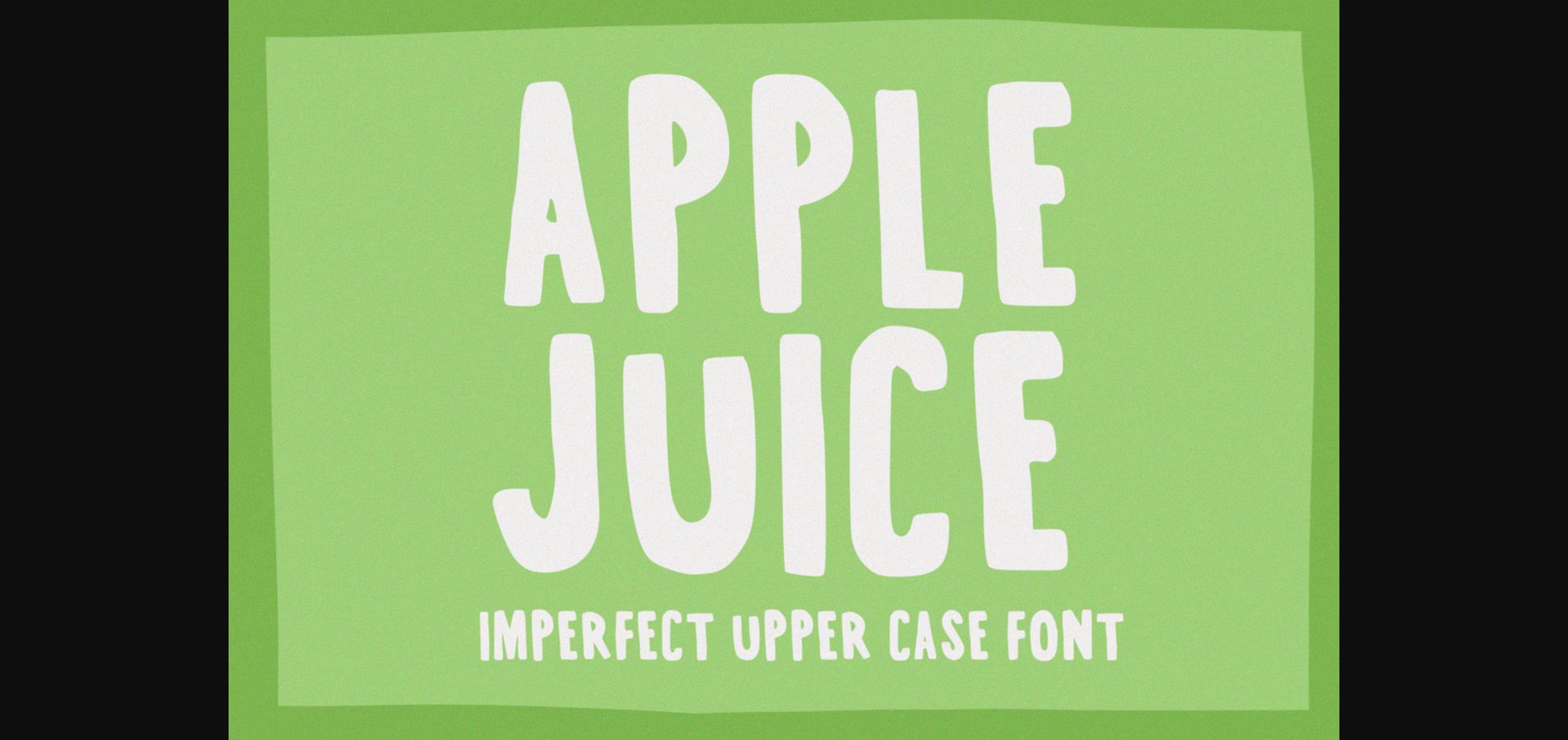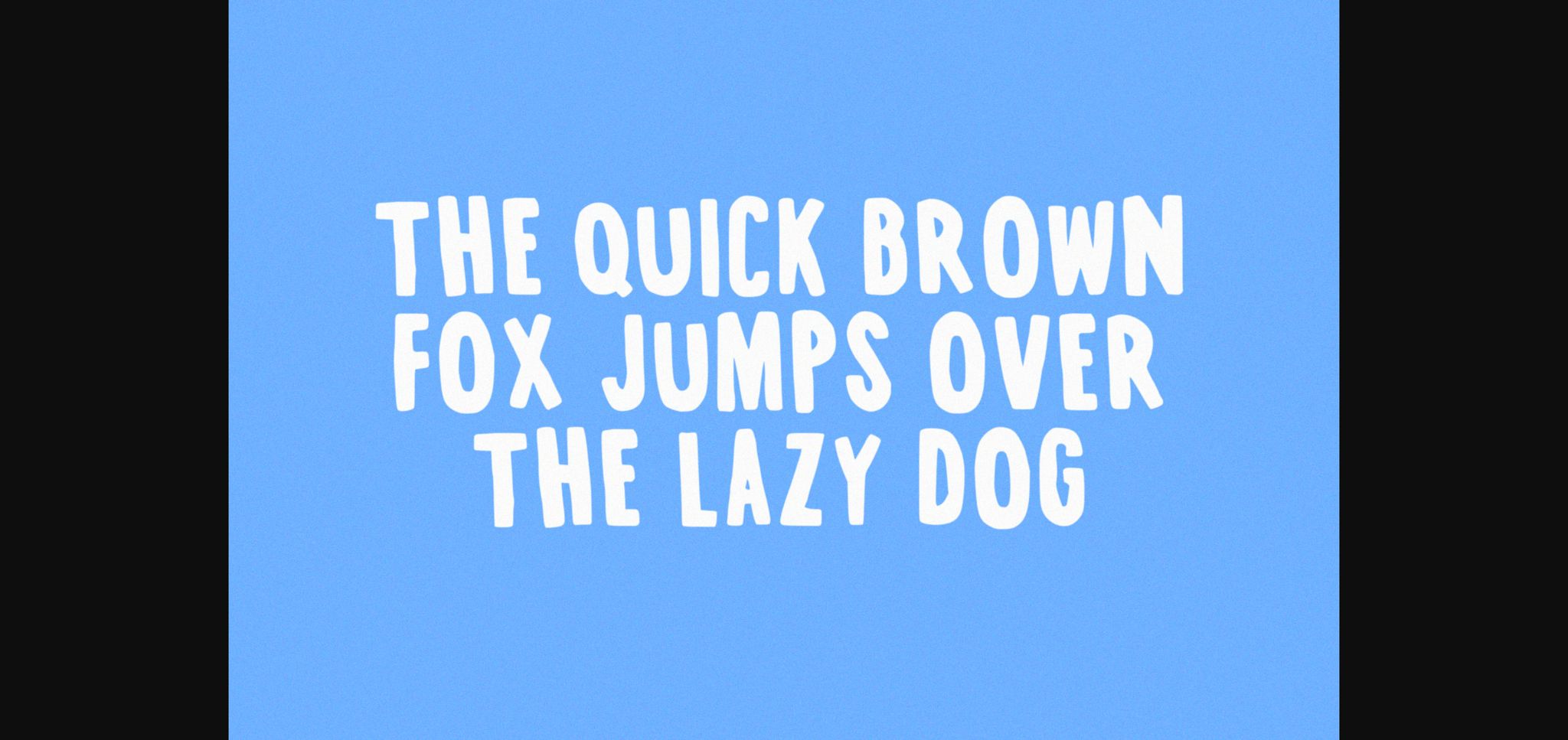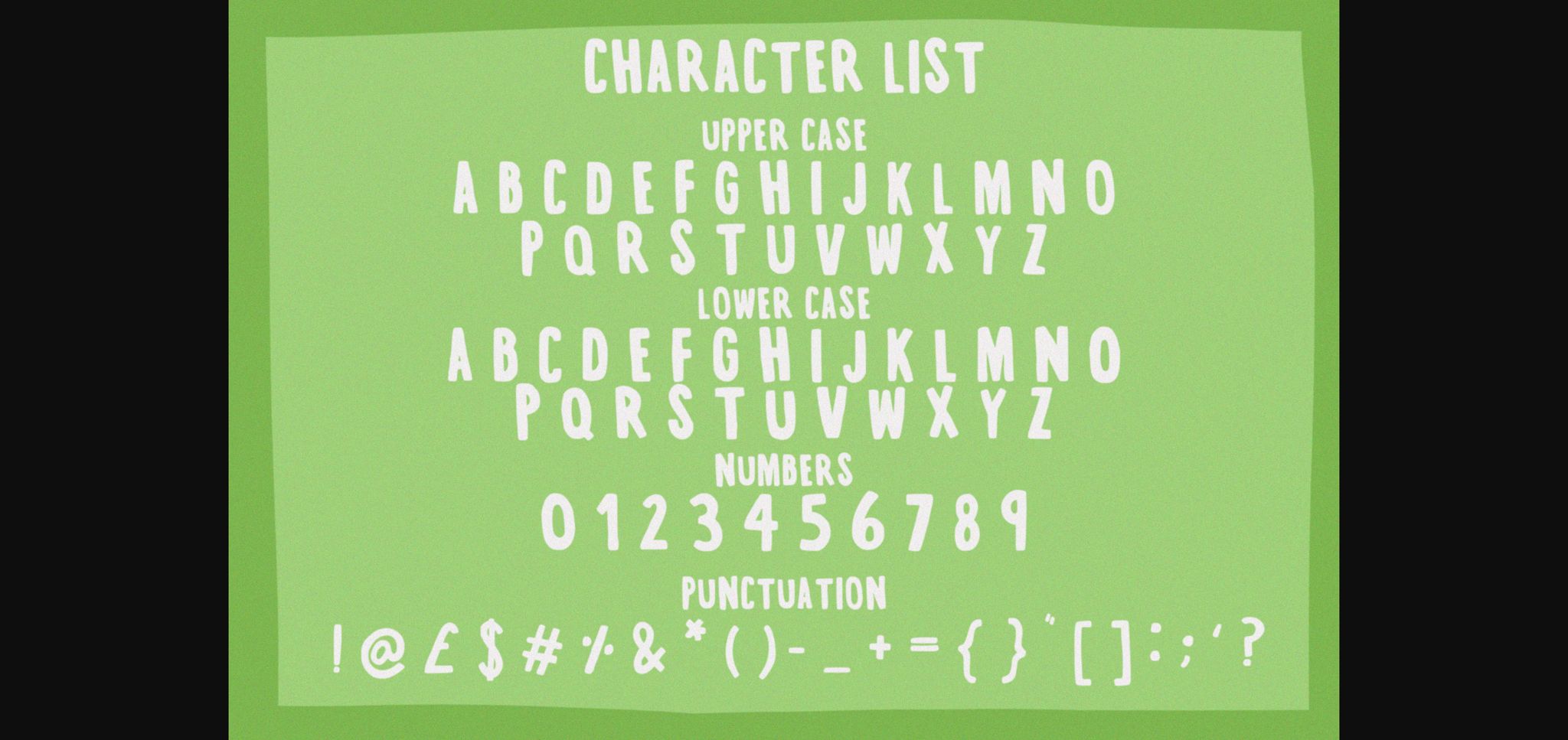
Apple Juice Font
About Apple Juice Font
Apple Juice is an all-caps funky imperfect typeface perfect for any quirky design work! This font can be used for anything such as t-shirt designs, phone cases, greeting cards, invitations, mugs and so much more! Get creative!